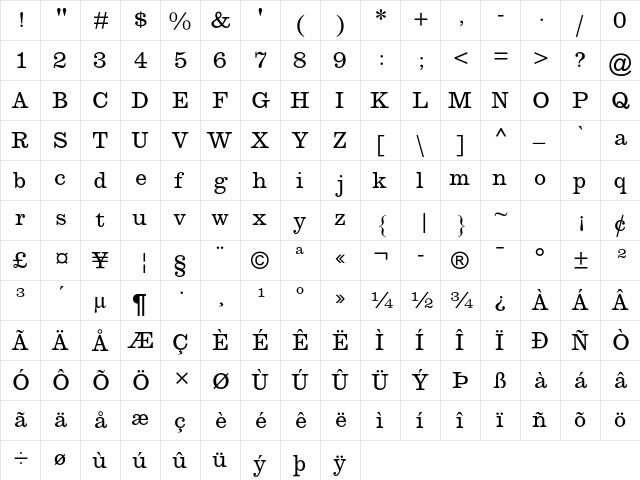
New Clarendon MT Std Regular
Design Context for New Clarendon MT Std Typeface
New Clarendon MT Std features prominent, blocky serifs that give it a confident, grounded presence — equally at home in editorial settings and bold branding work.
Suited to magazines, political campaign materials, bold packaging, and any setting where authority matters.
Pro Tip: Use New Clarendon MT Std for headlines and subheadings where its slab serifs can make an impression. It also holds up well in mid-size body copy thanks to its sturdy construction.